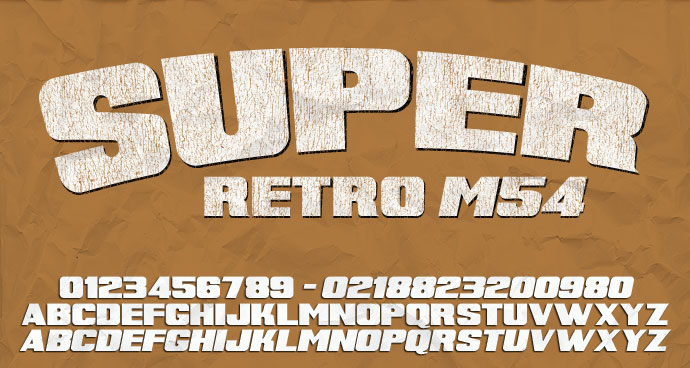
A super extended retro style font I created that encapsulates a vintage feel. Great for T-shirts and apparel design, best in bigger point sizes. A similar font to use alongside this would be Compacta. If you find this font useful then please consider a donation to justme54s[at]yahoo.co.uk, any amount will be greatly appreciated. A donation isn't necessary to use this font for personal or non-commercial use. I'll be interested to know how people use it so a picture or artwork sent to justme54s[at]yahoo.co.uk would be nice. If you wish to use this font commercially a donation or license is required, please email for further information. Alternatively, for one time commercial use just send details of usage along with your donation so that a return email can be sent as proof of rights to commercial usage. Usage Agreement You may not host this font anywhere online as it is hosted exclusively at FontSpace.com and Dafont.com. Any links for downloads should be directed to FontSpace or Dafont. You may share the font electronically but the Zip file should remain intact with the font alongside all other files as packaged. You may not sell this font, but are allowed to distribute it freely i.e. in magazines. |